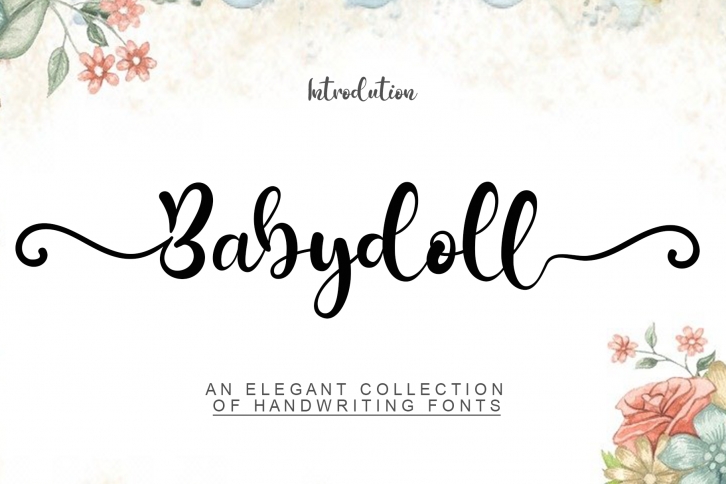
Babydoll is a romantic and sweet calligraphy typeface with characters that dance along the baseline. It will add a luxury spark to any design project that you wish to create! This font is PUA encoded which means you can access all of the amazing glyphs and ligatures with ease!